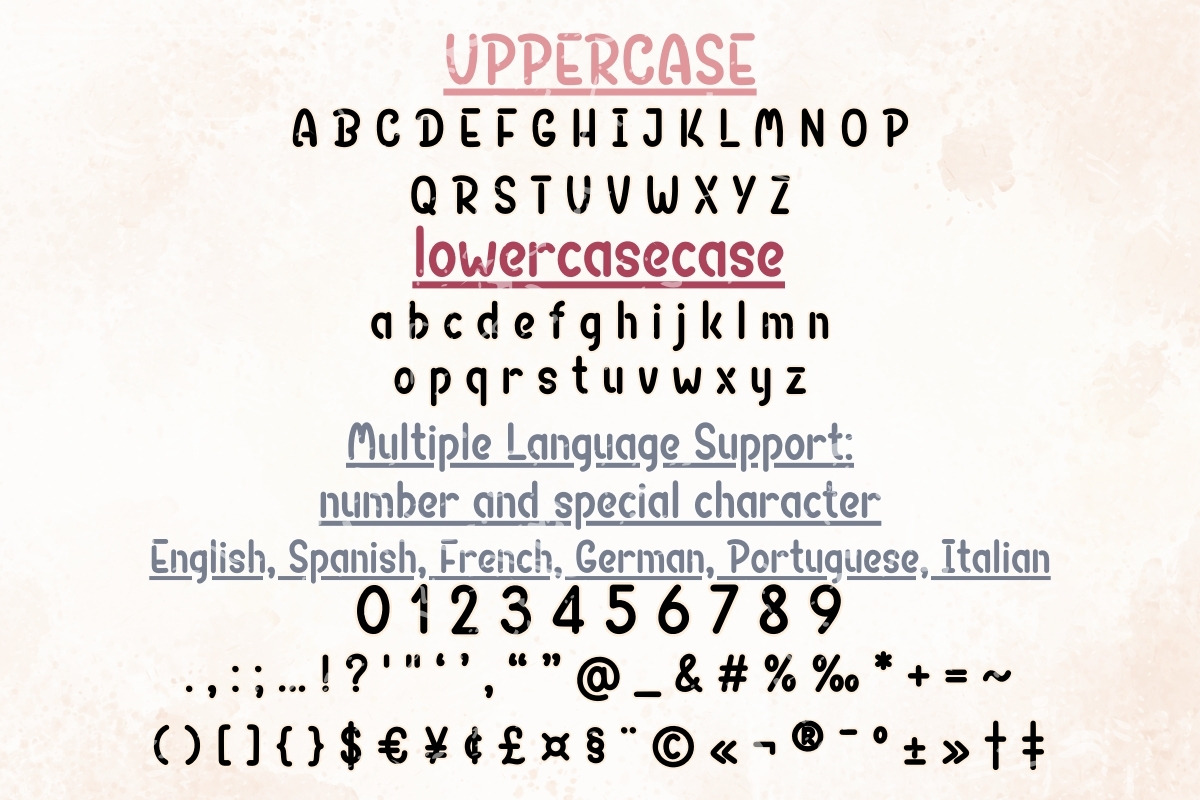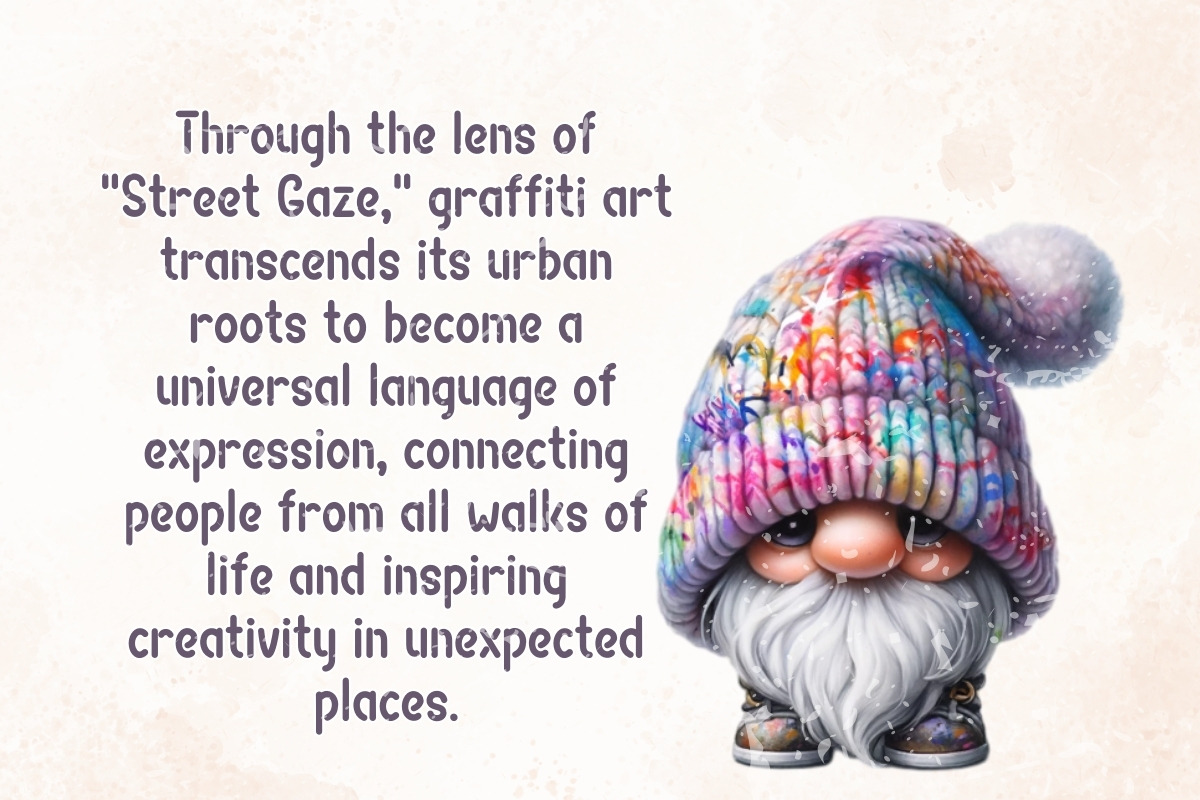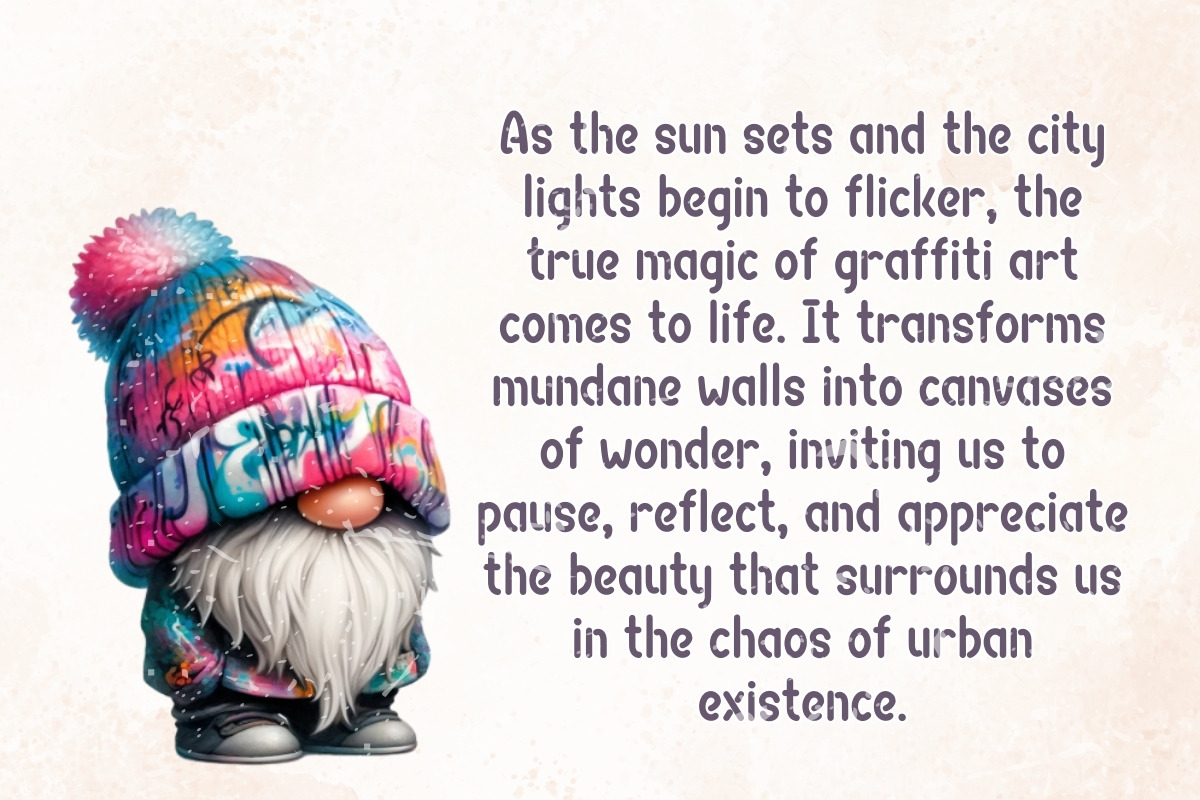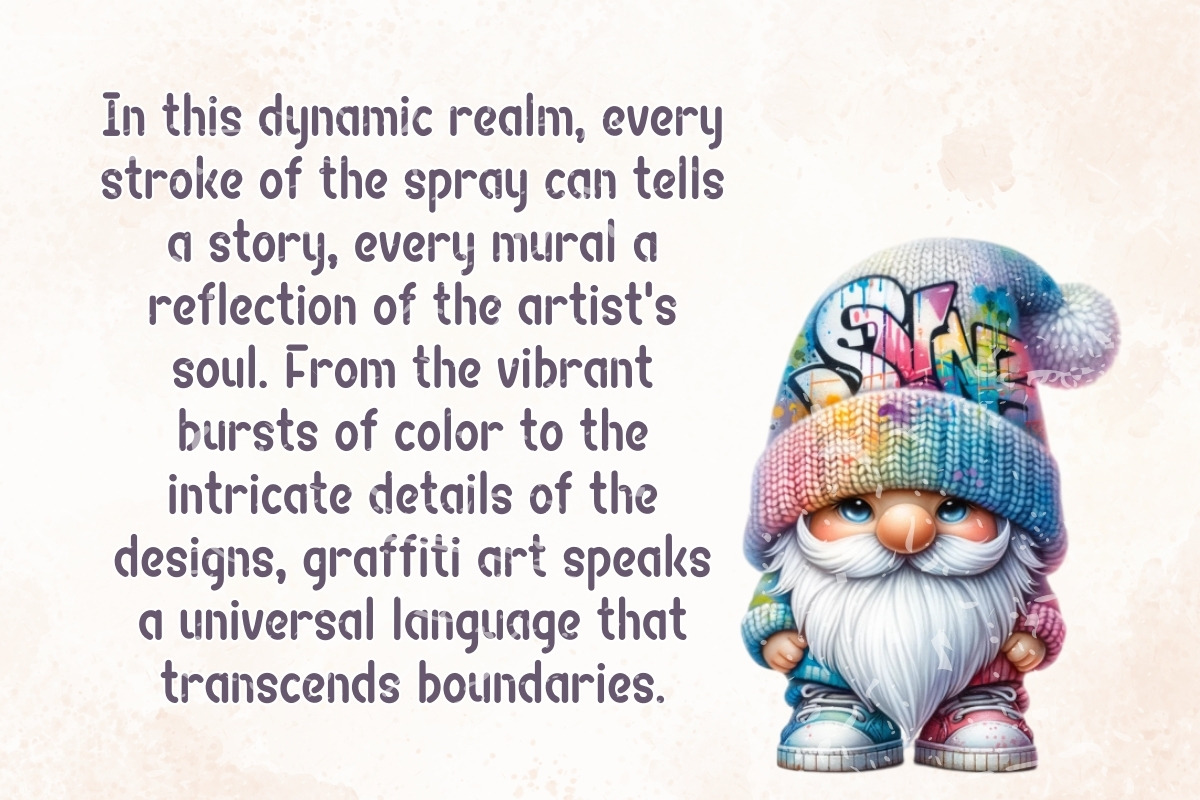
Street Gaze - Handwritten
ntroducing "Street Gaze" Font: Experience the charm of handwritten elegance with "Street Gaze" font. This delightful typeface brings a touch of whimsy and warmth to your projects, capturing the essence of casual, yet stylish, handwriting.